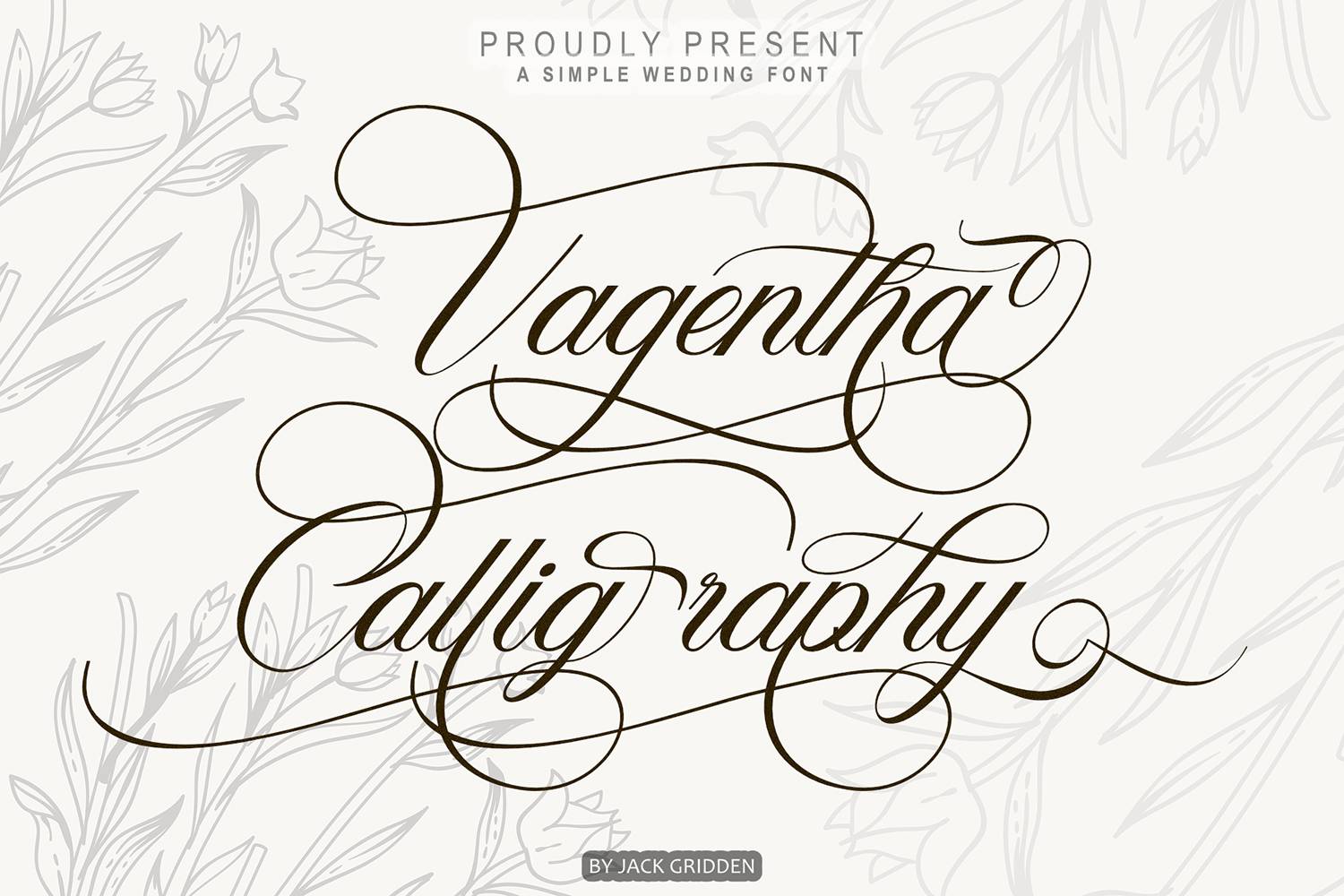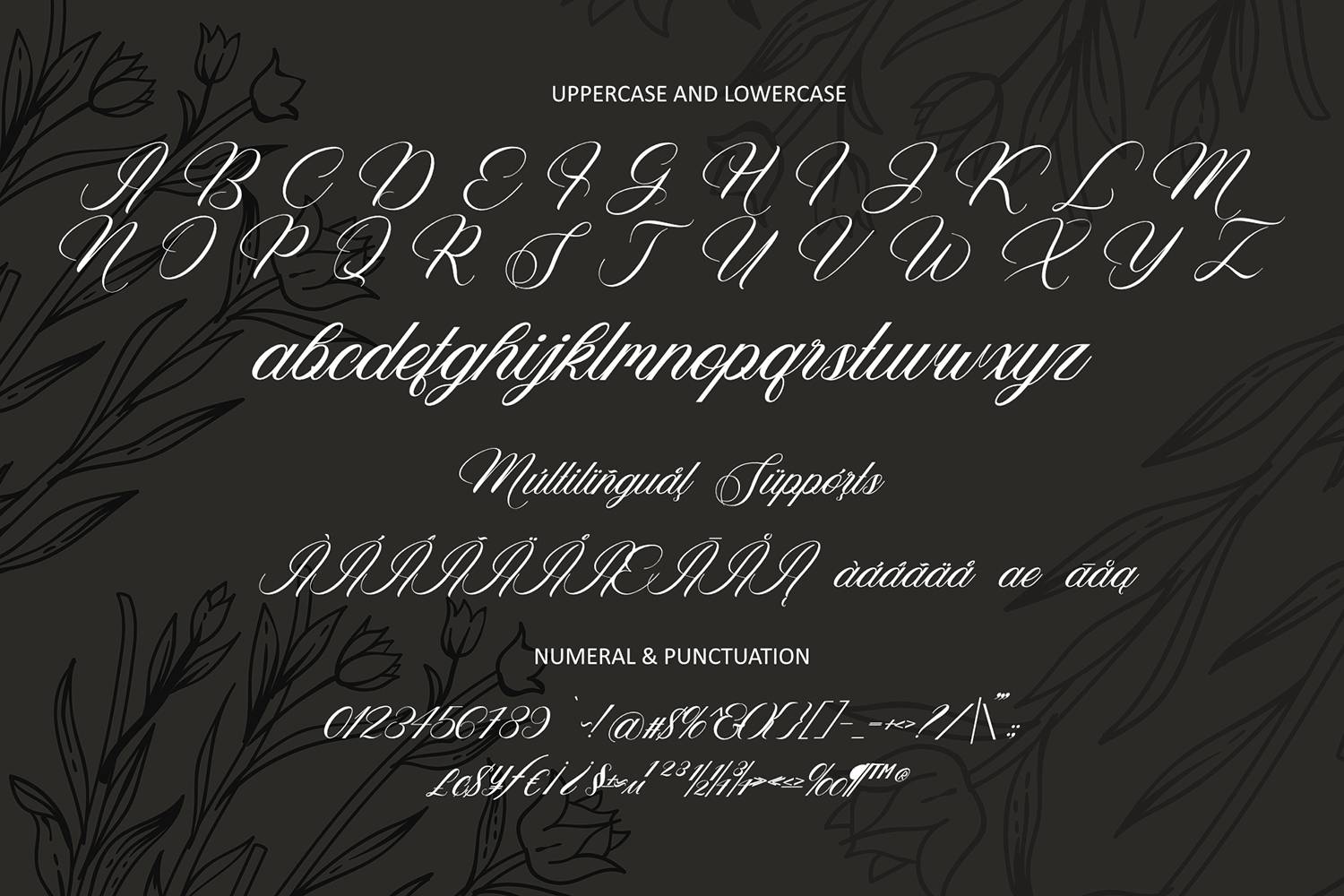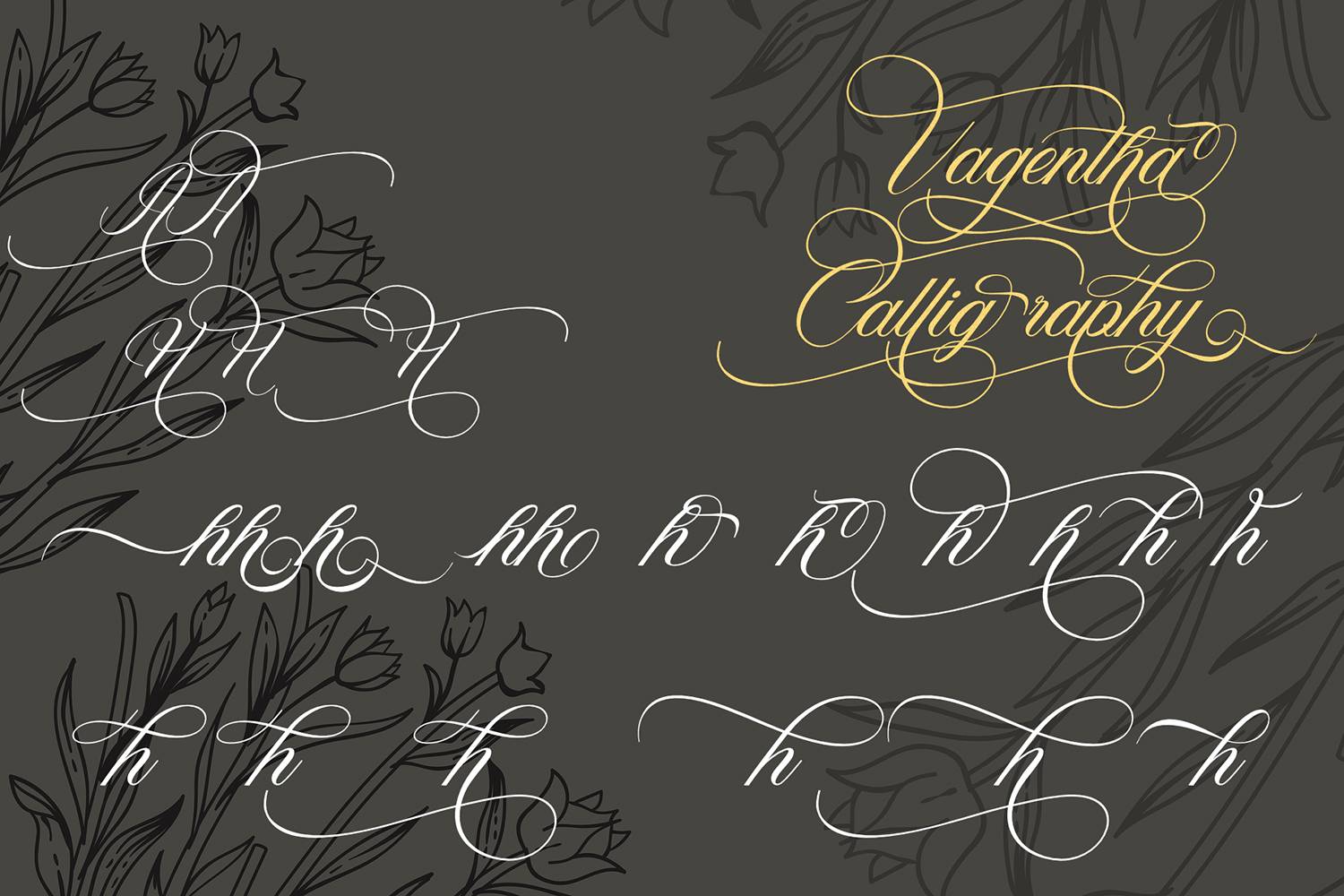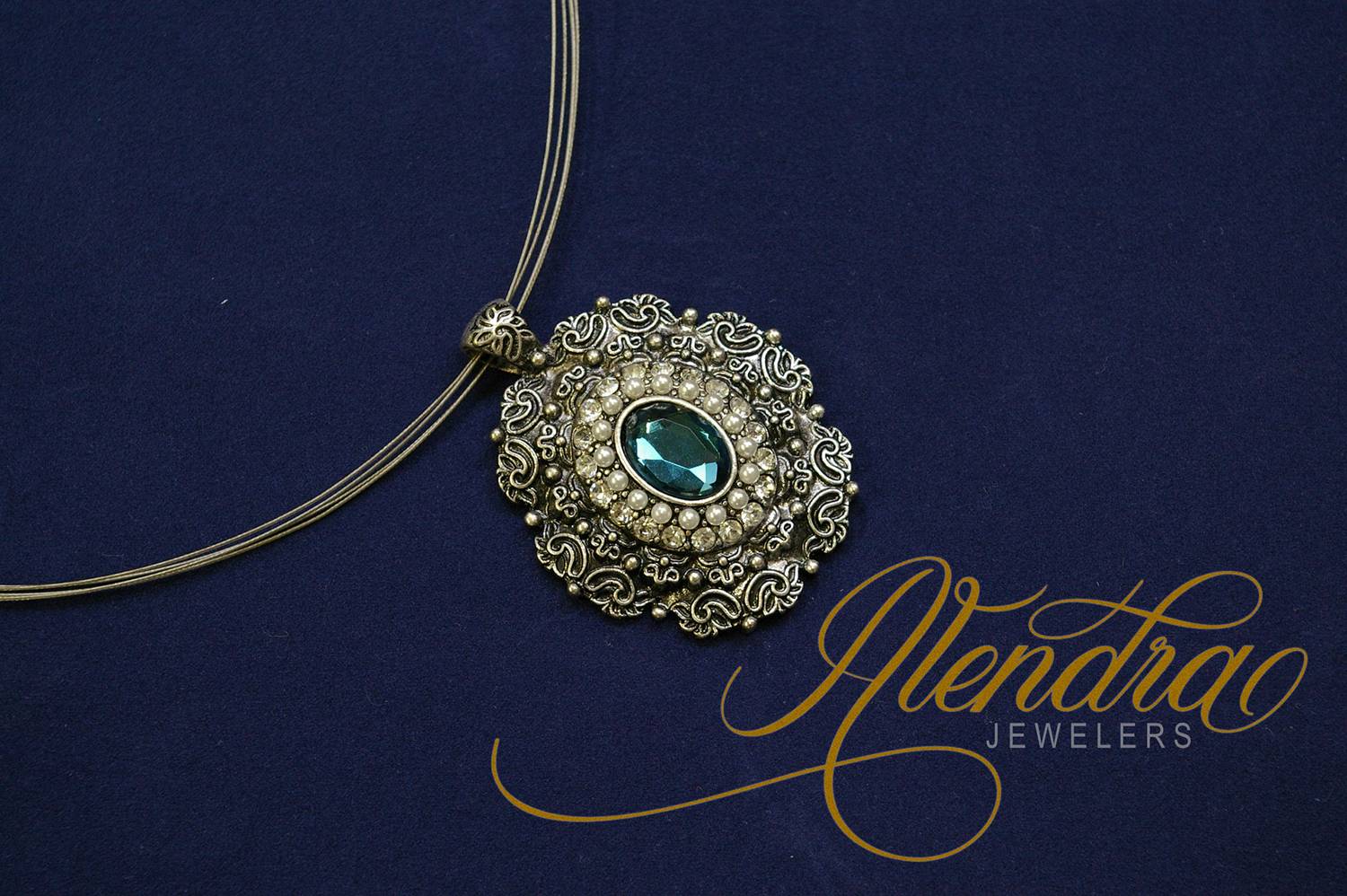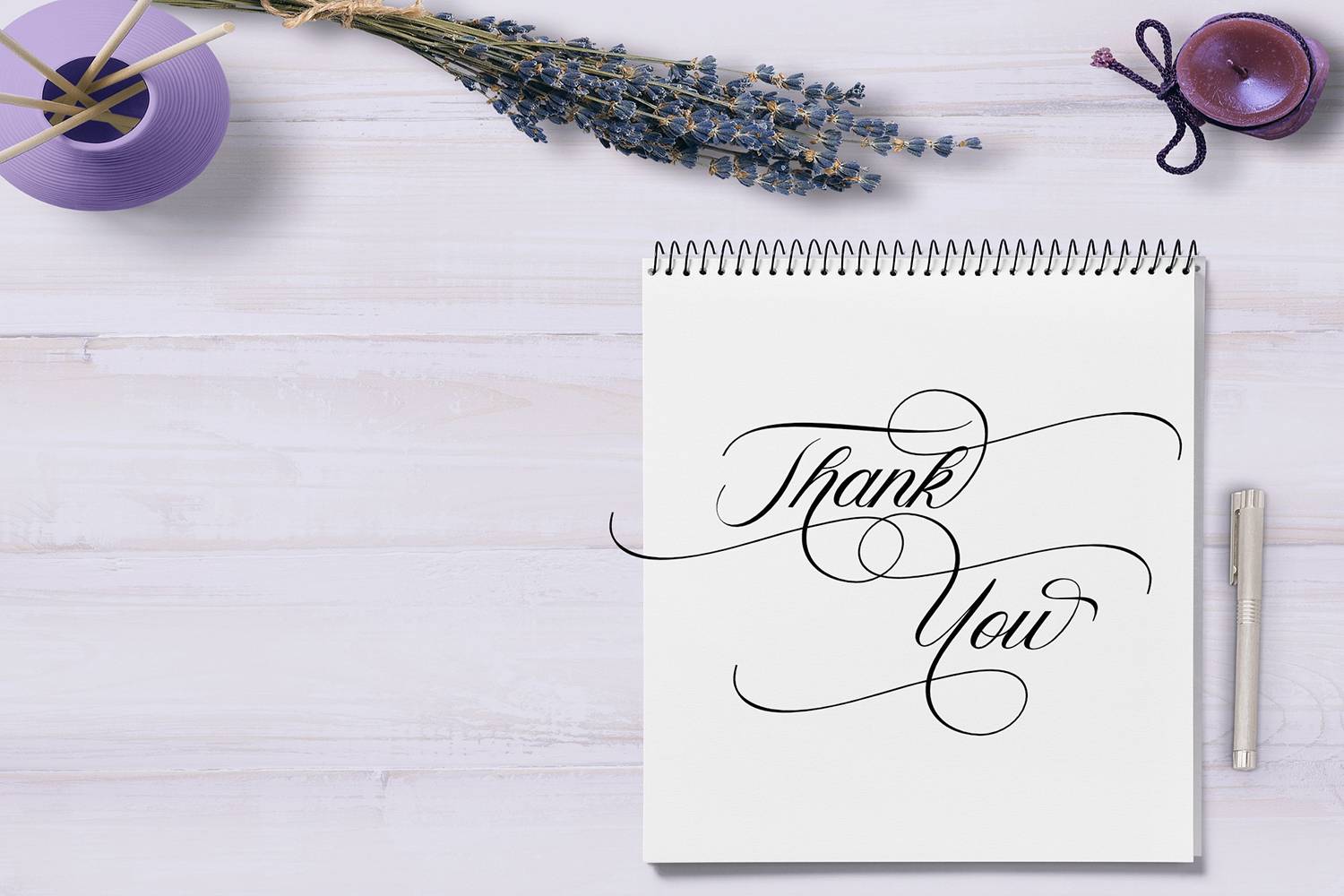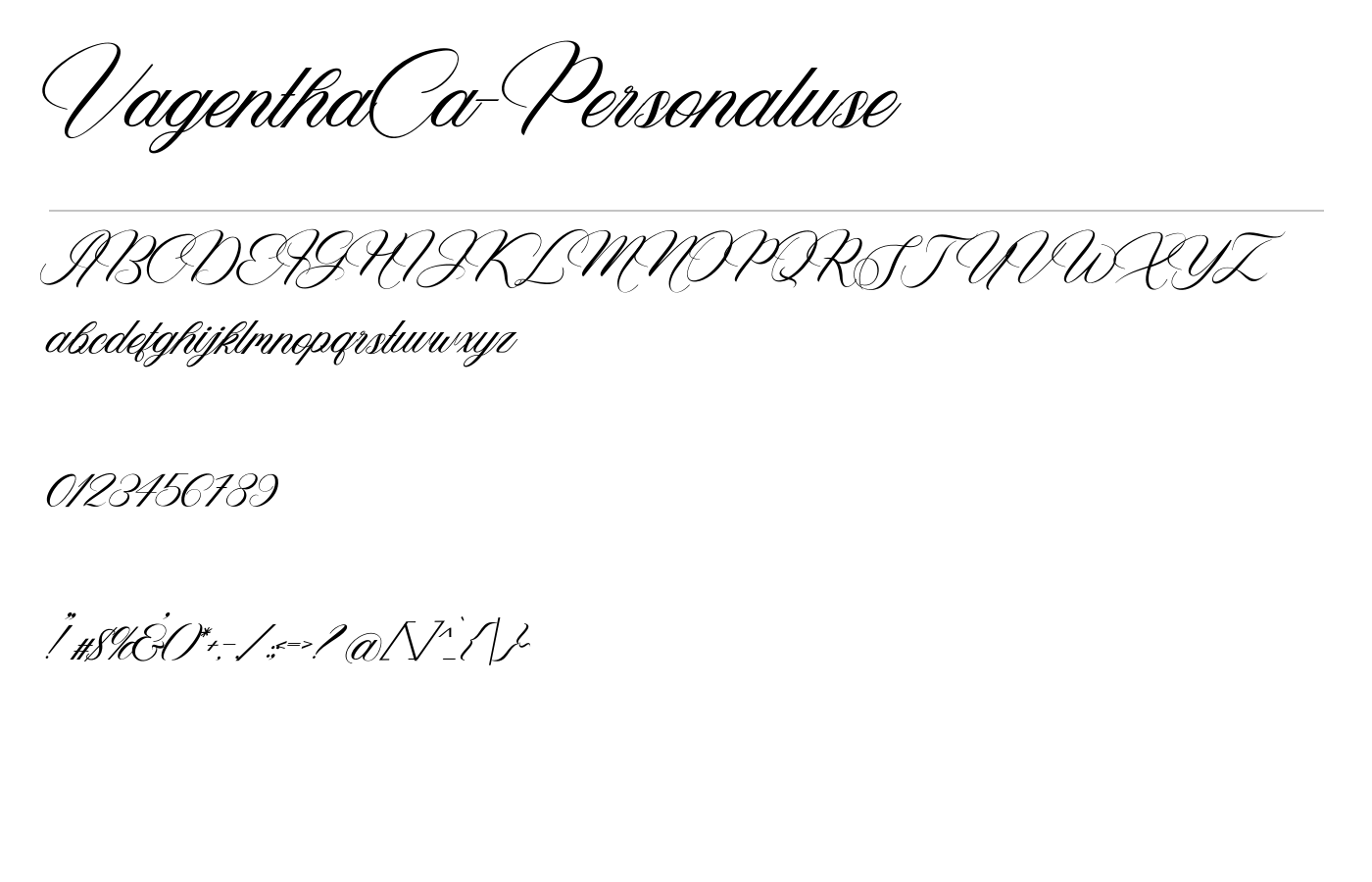
Vagentha is an elegant script font characterized by its flowing, delicate strokes and graceful curves, evoking a sophisticated and refined feel. Its slender letterforms and smooth connections make it ideal for luxury branding, wedding invitations, and upscale editorial designs where a touch of classic, handwritten charm is desired. This font works best in large sizes for headlines or decorative text to showcase its intricate beauty and stylish personality.
Vagentha Font